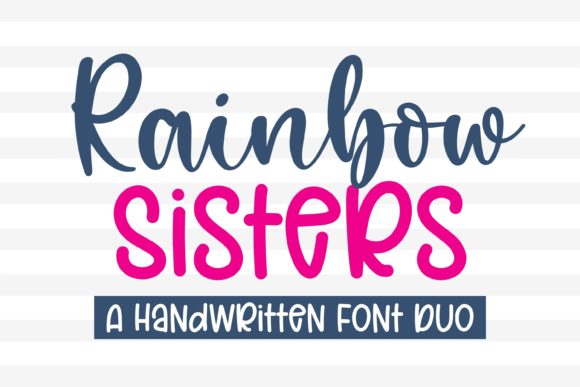
Feast your eyes on Rainbow Sisters, a bewitching duo-styled handwritten font that weaves magic into every letter. This enchanting font family, brought to life by BitongType, is specifically tailored for Procreate, inviting you to unleash your creativity and leave a lasting impression.
Rainbow Sisters effortlessly merges charm and delicacy, captivating your audience with its graceful strokes and elegant curves. Express yourself with finesse, and transform your creative visions into stunning realities.
With Rainbow Sisters, you'll embark on a typographic journey filled with elegance and distinction. Whether you're a seasoned designer or just starting your creative adventure, this font will elevate your work to new heights.
Dive into a world of possibilities with Rainbow Sisters. Paint your words with passion, captivate your readers with charm, and leave a lasting impression on every heart. Let this font be your muse, inspiring you to create masterpieces that ignite imaginations and spark conversations.
Embrace the beauty of Rainbow Sisters, a font that dances across the page like a symphony of colors and emotions. Experience the joy of seamless creativity, where your ideas flow freely and effortlessly.
Bid farewell to ordinary fonts and embrace the extraordinary with Rainbow Sisters. Let your creativity soar and embark on a journey of typographic enchantment. Unleash the power of words, one beautiful letter at a time.